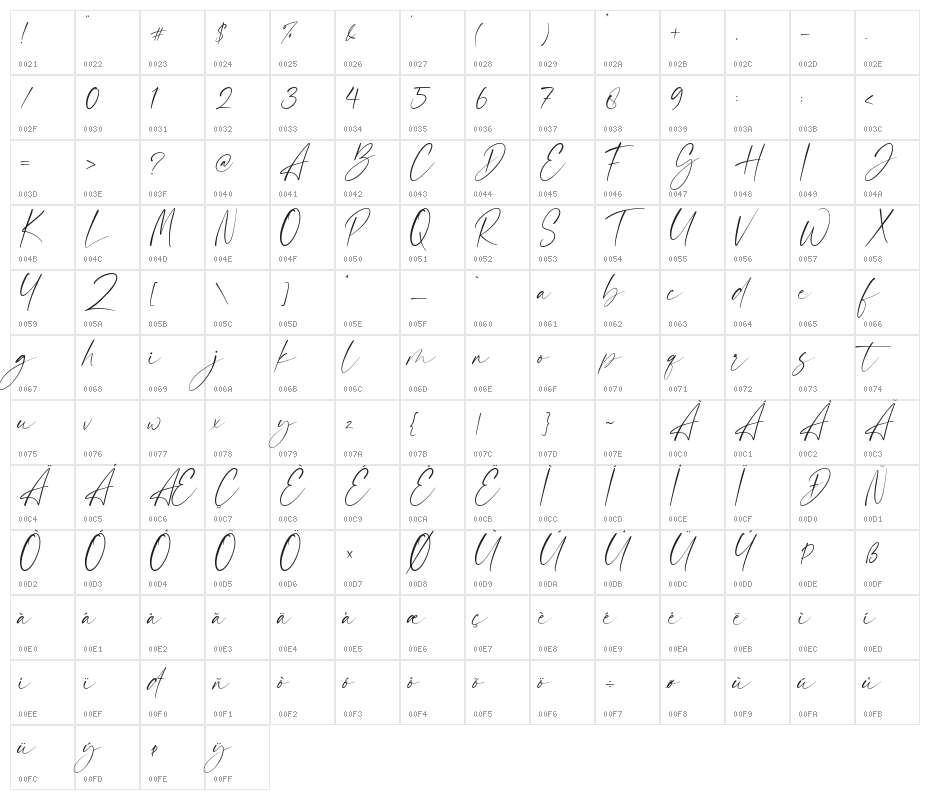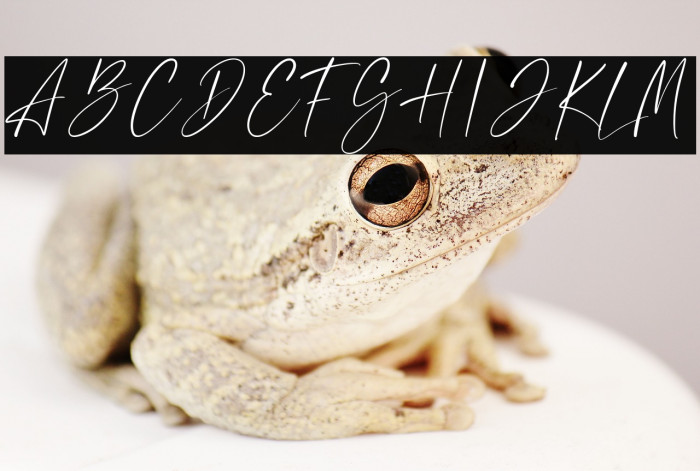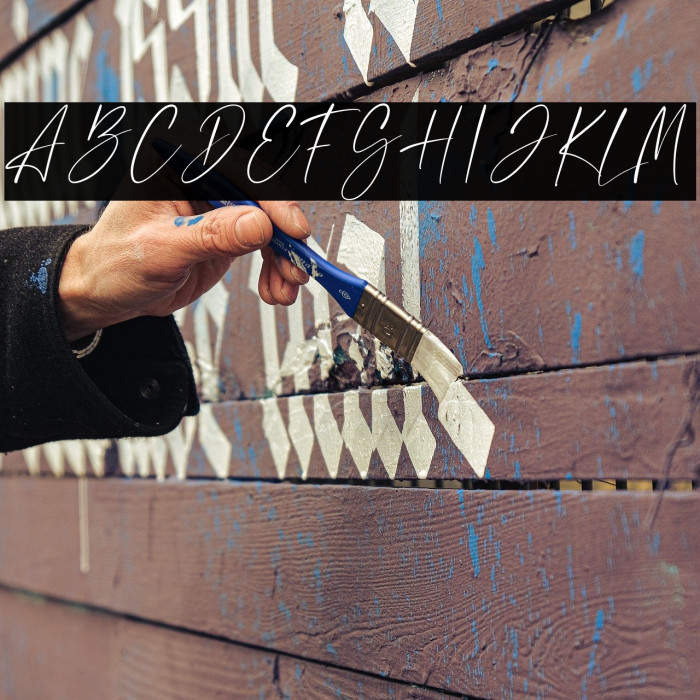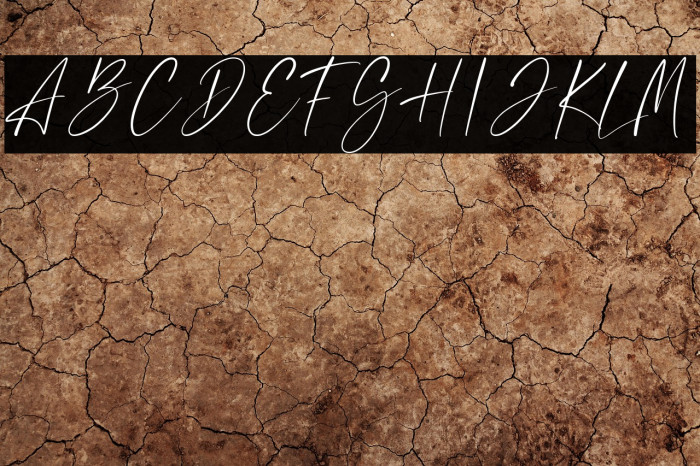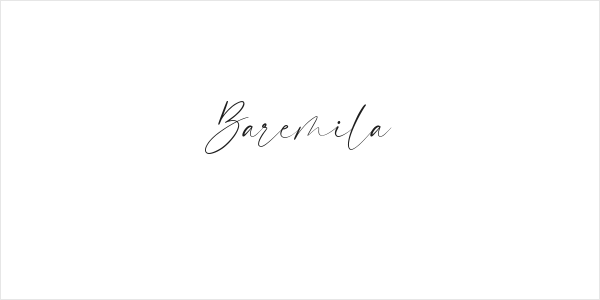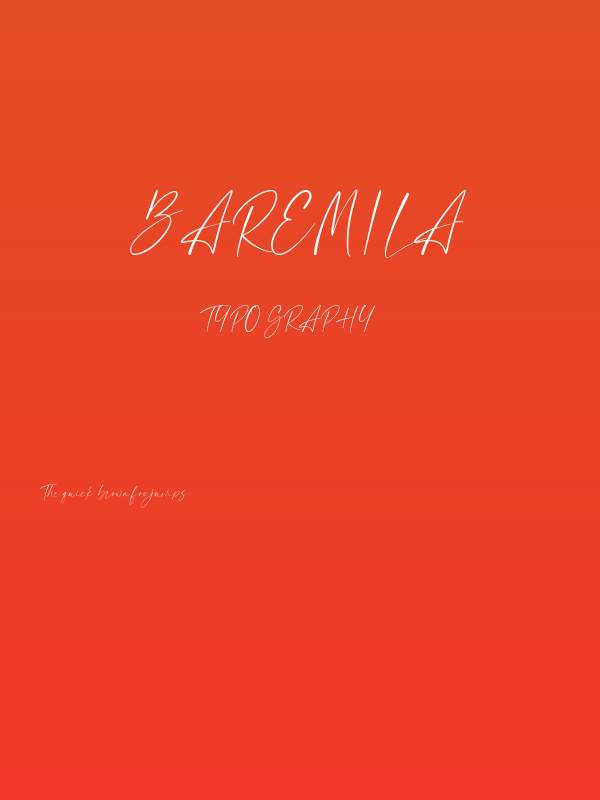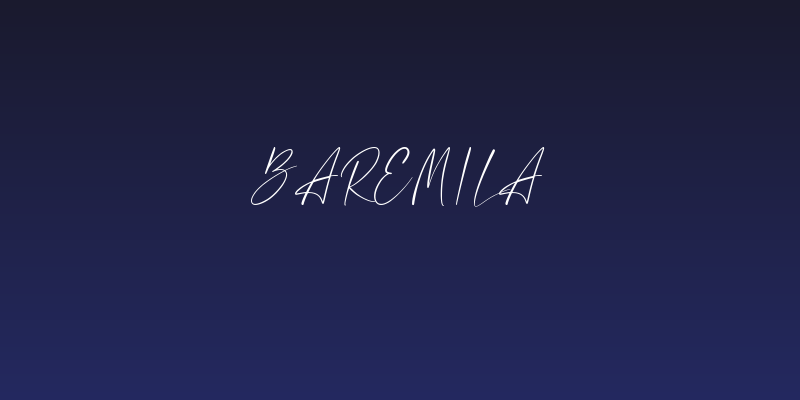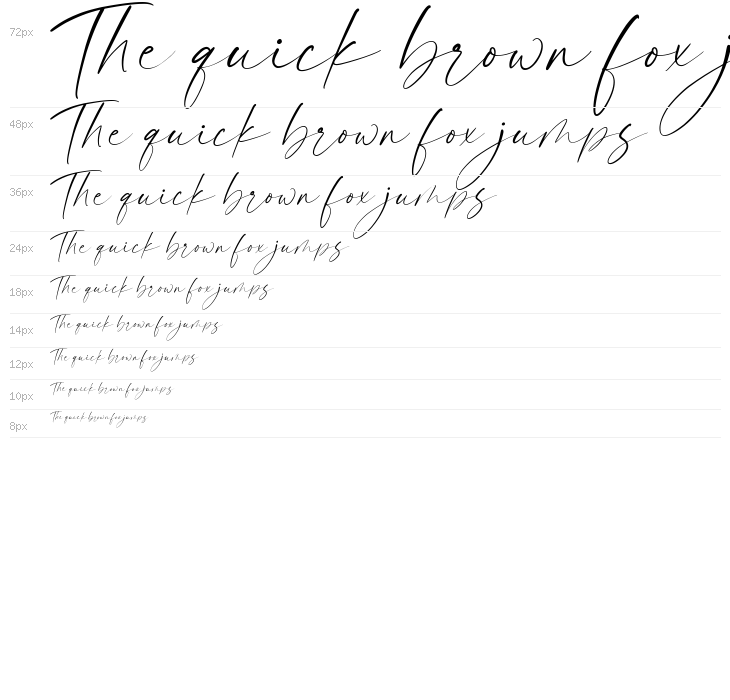
Baremila Font
Baremila Description
This font exudes a sense of elegance and fluidity, characterized by its cursive, handwritten style. The letters are connected in a flowing manner, with varying stroke thickness that adds a dynamic and lively feel. The uppercase letters are tall and slender, while the lowercase letters maintain a consistent flow, enhancing readability despite the script style. The numerals are distinct and maintain the same fluidity, ensuring they complement the letterforms. Special characters are crafted with the same attention to detail, making them seamlessly integrate with the rest of the font. This font is perfect for projects that require a personal touch, such as invitations, greeting cards, or branding materials that aim to convey sophistication and elegance.
Overall StyleElegant
Use CaseLogos, Invitations, Greeting Cards
Proposed ProjectsIdeal for wedding invitations, personal branding, greeting cards, and elegant packaging designs.